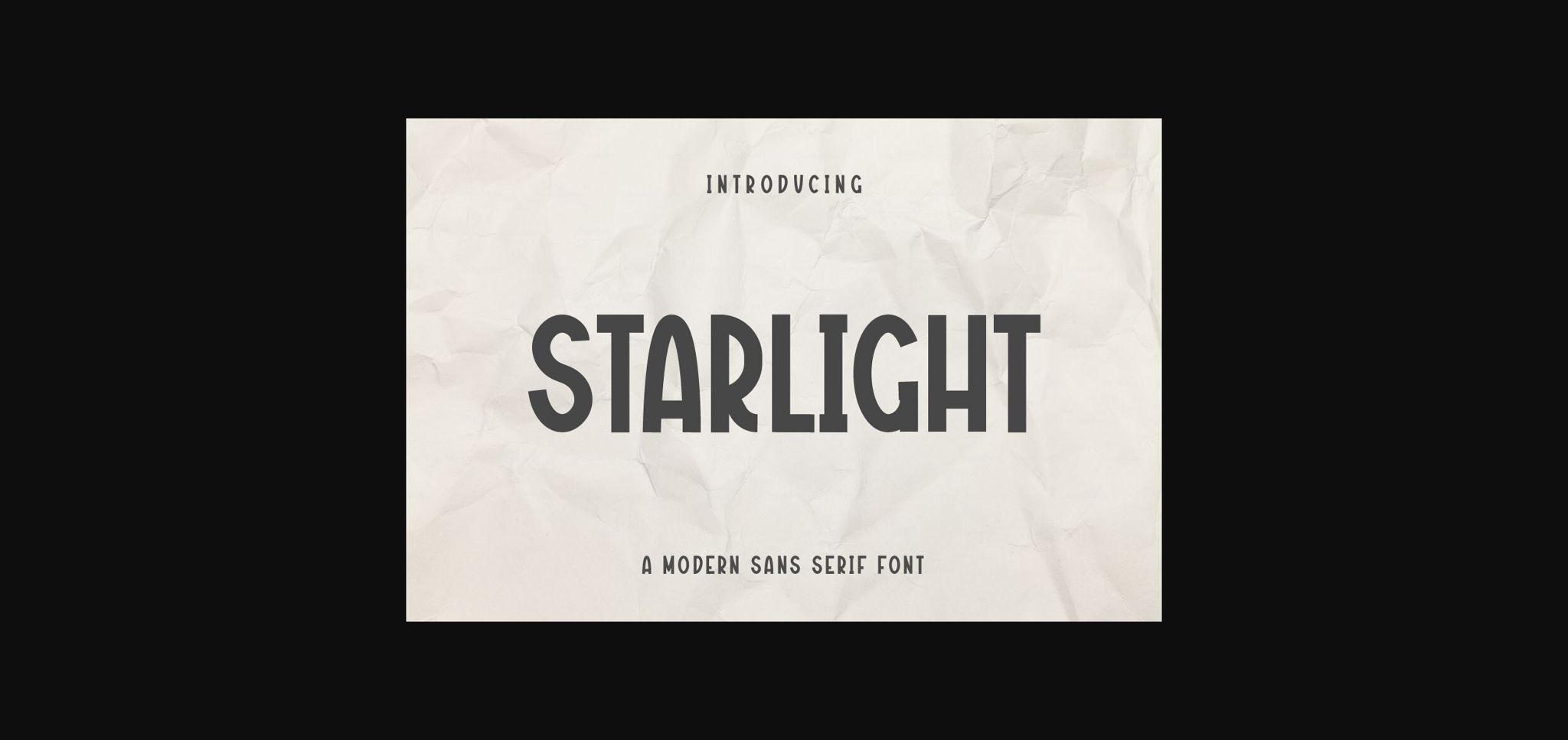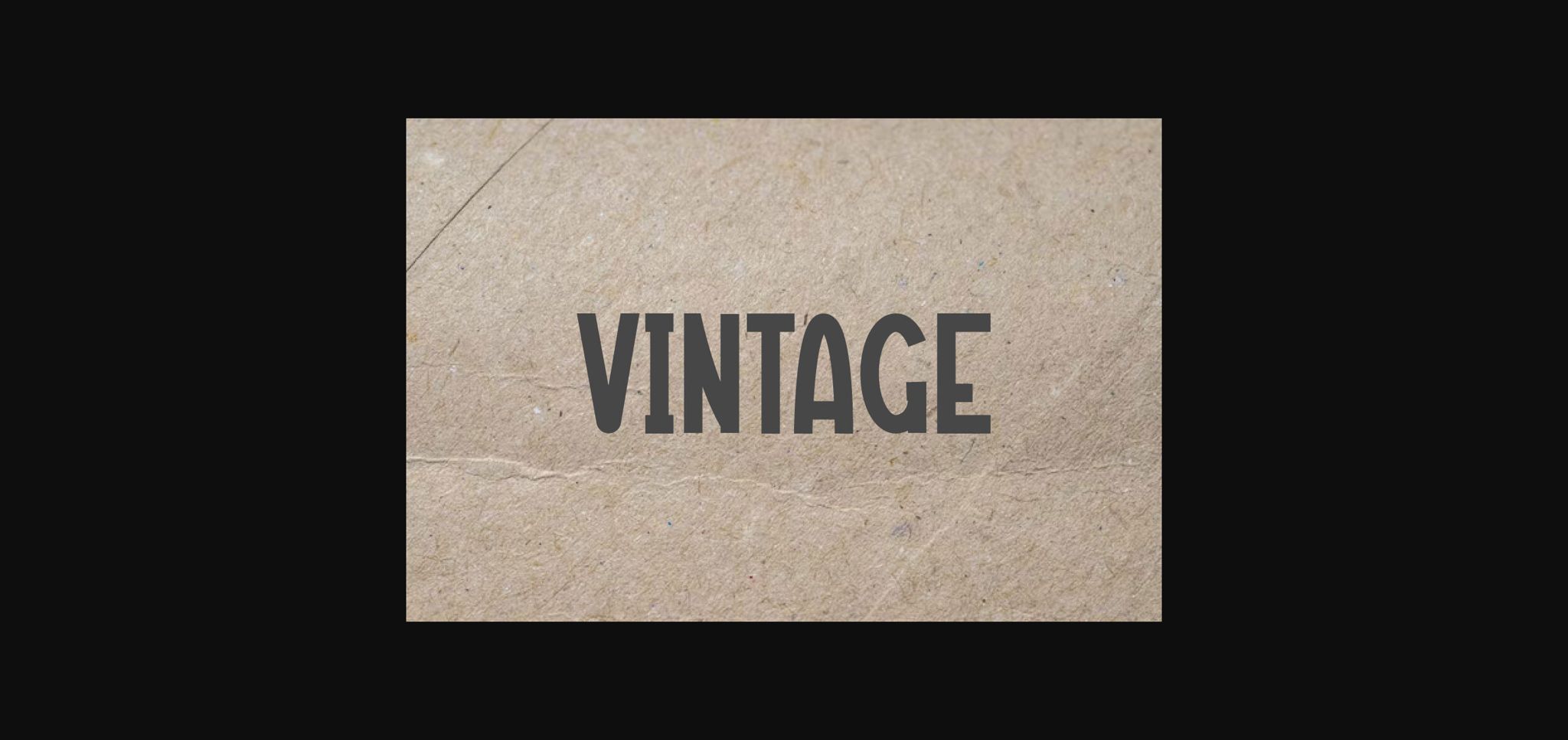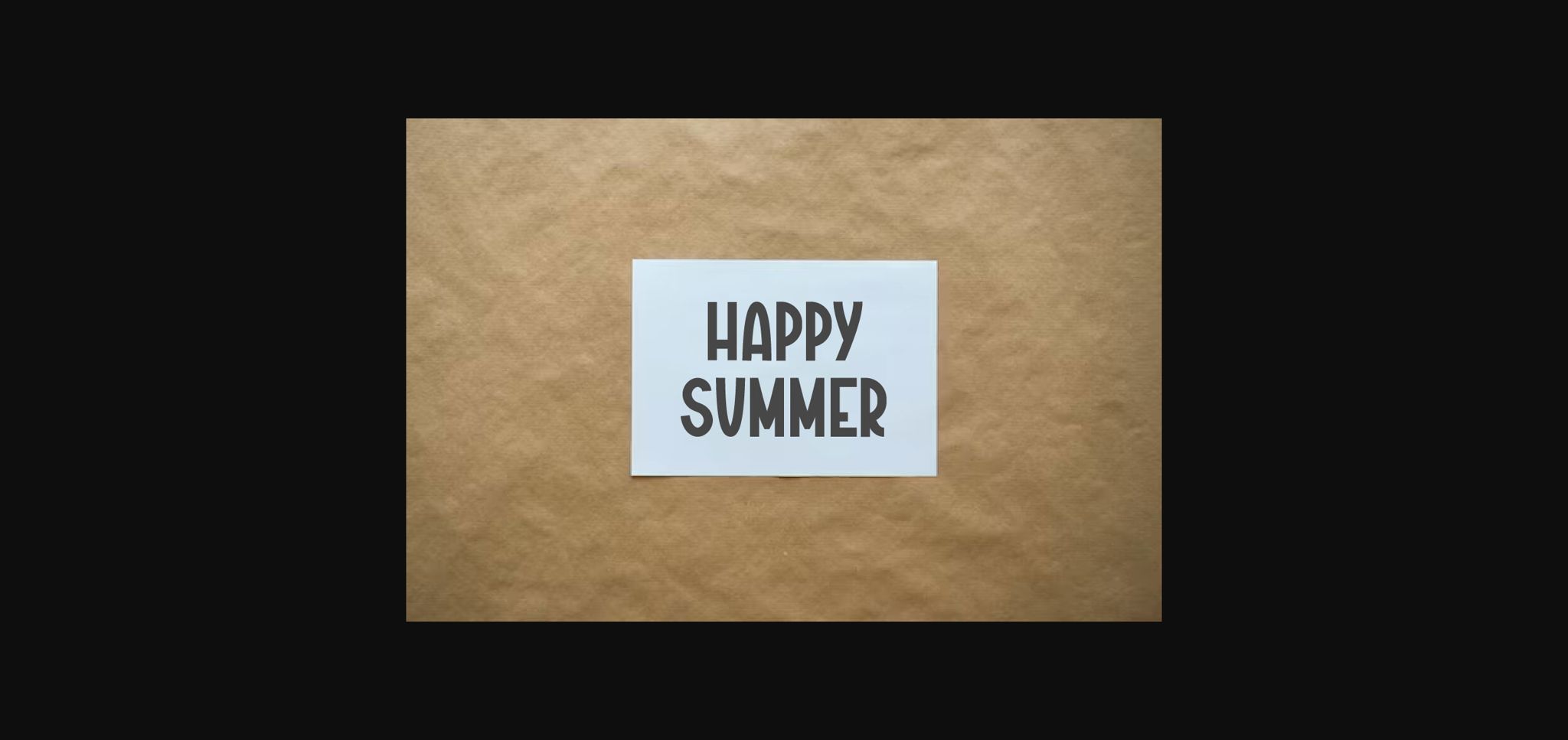
Starlight Font
About Starlight Font
Starlight is a cool and modern Sans Serif font. With a bold style and vintage feel. Whether you use it for crafts, digital designs, presentations, branding, labels, mugs, weddings, packaging, invitation cards, or making greeting cards, this font has the potential to become your favorite font, whatever the occasion.